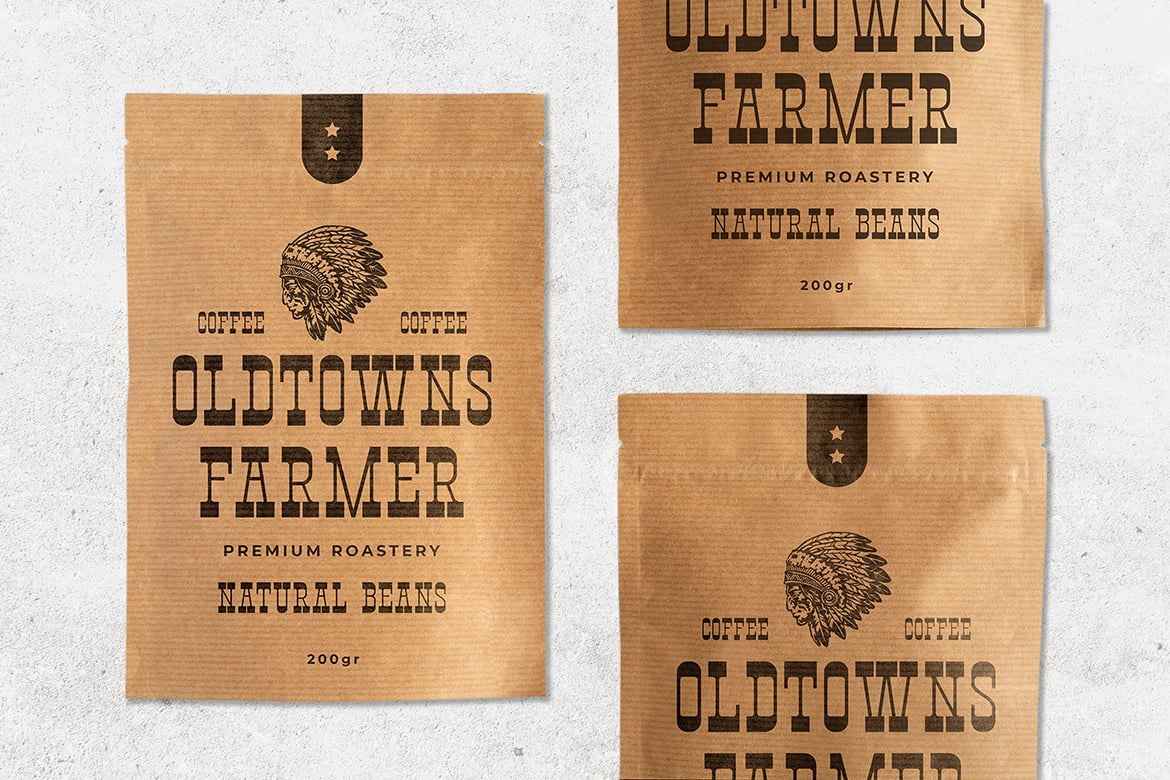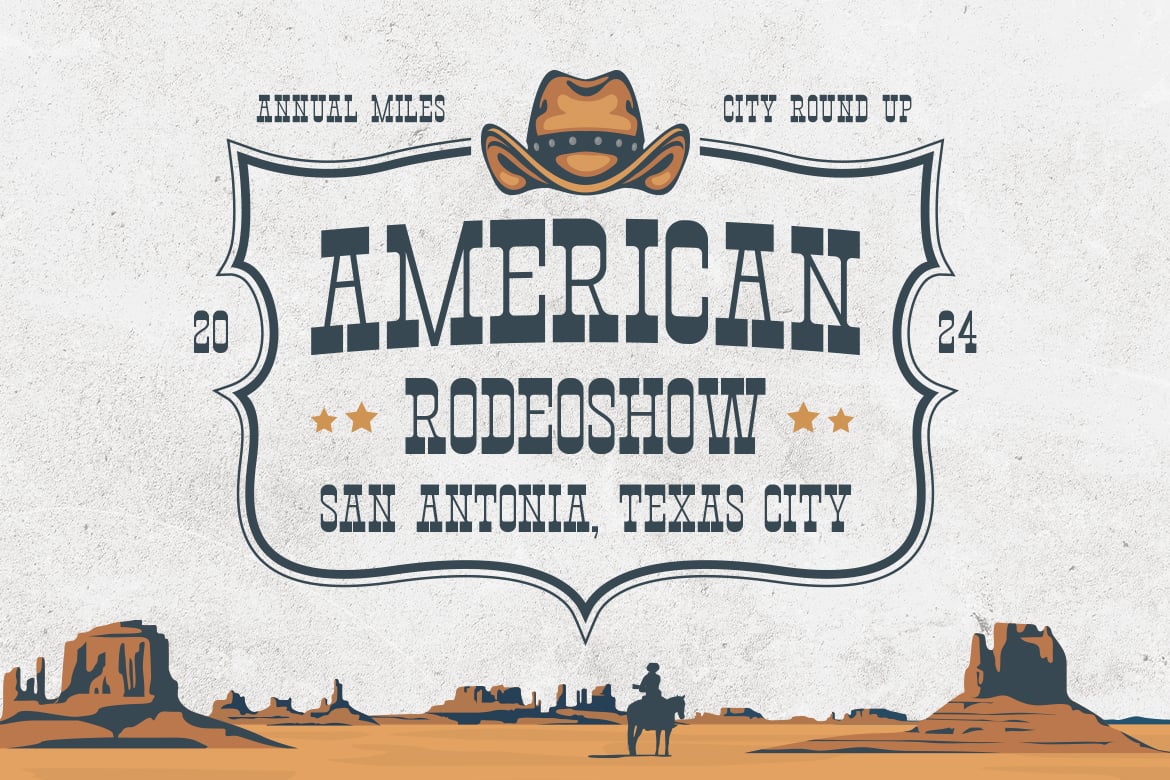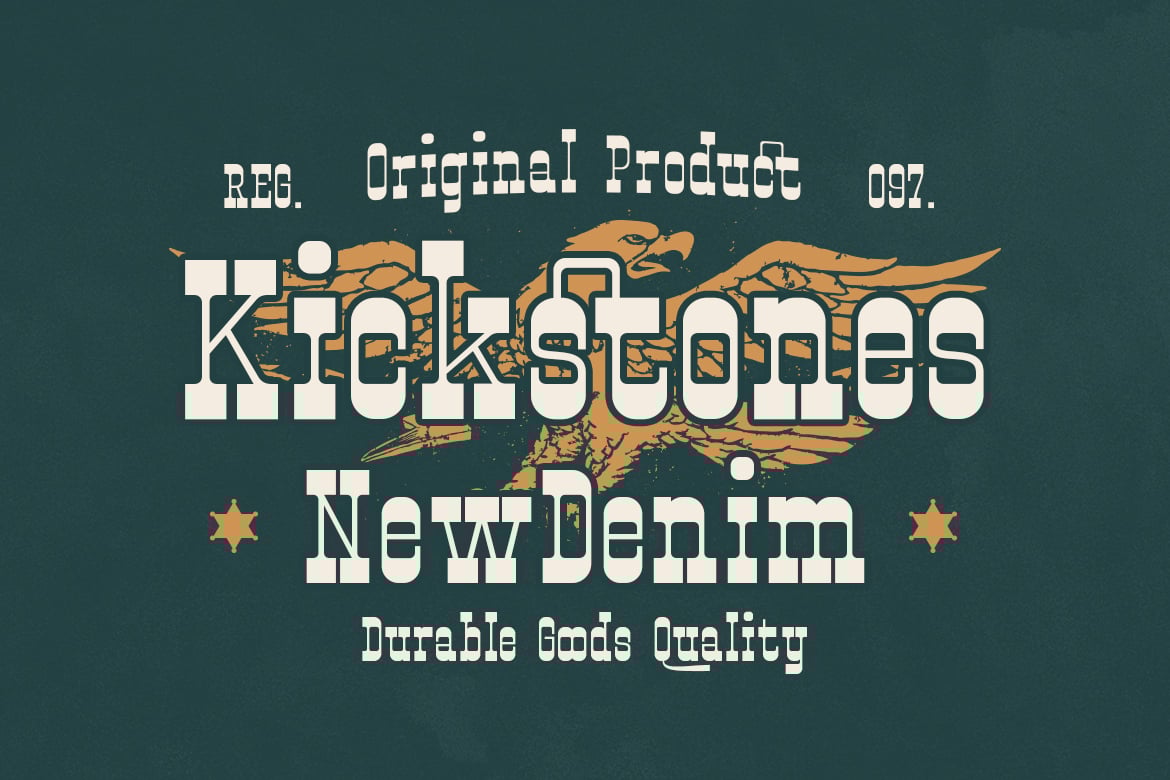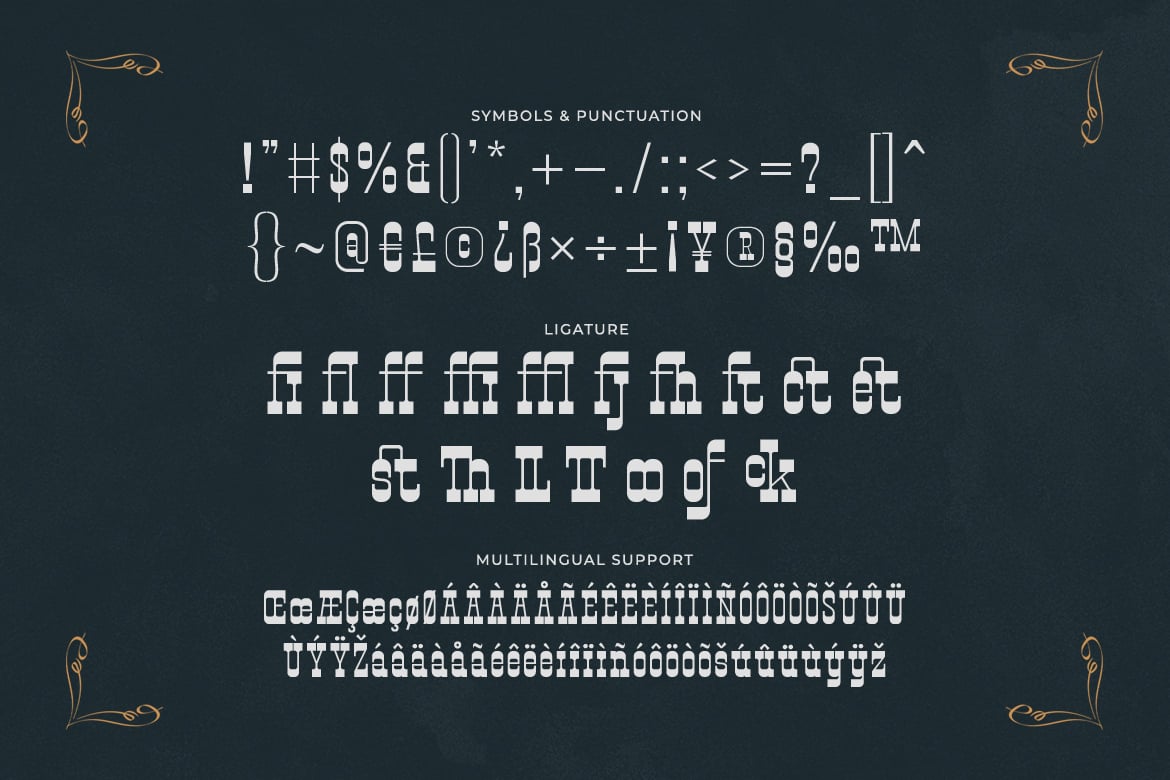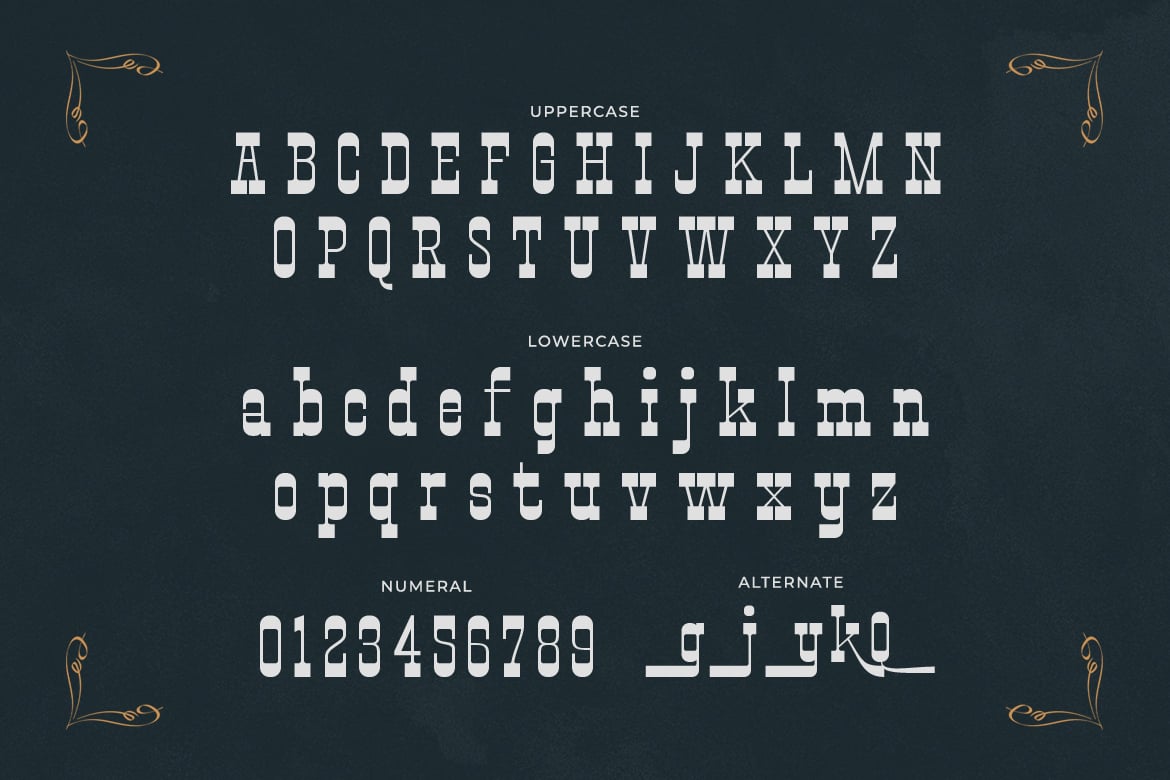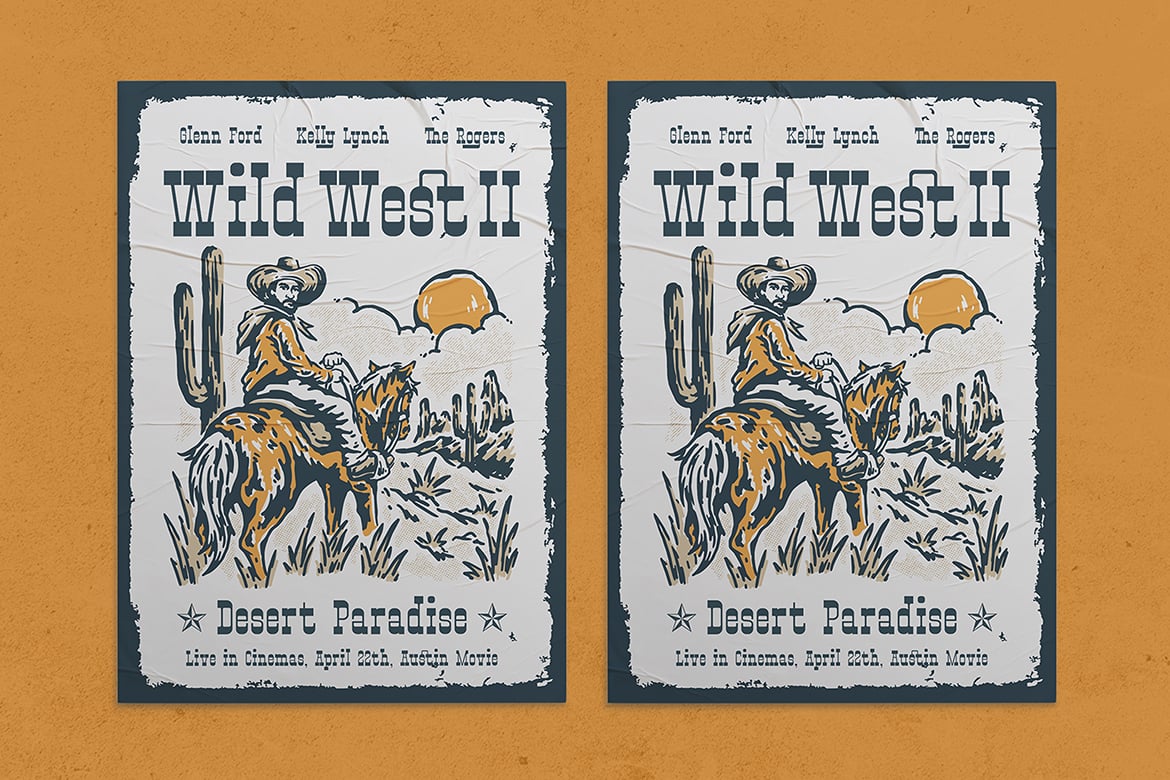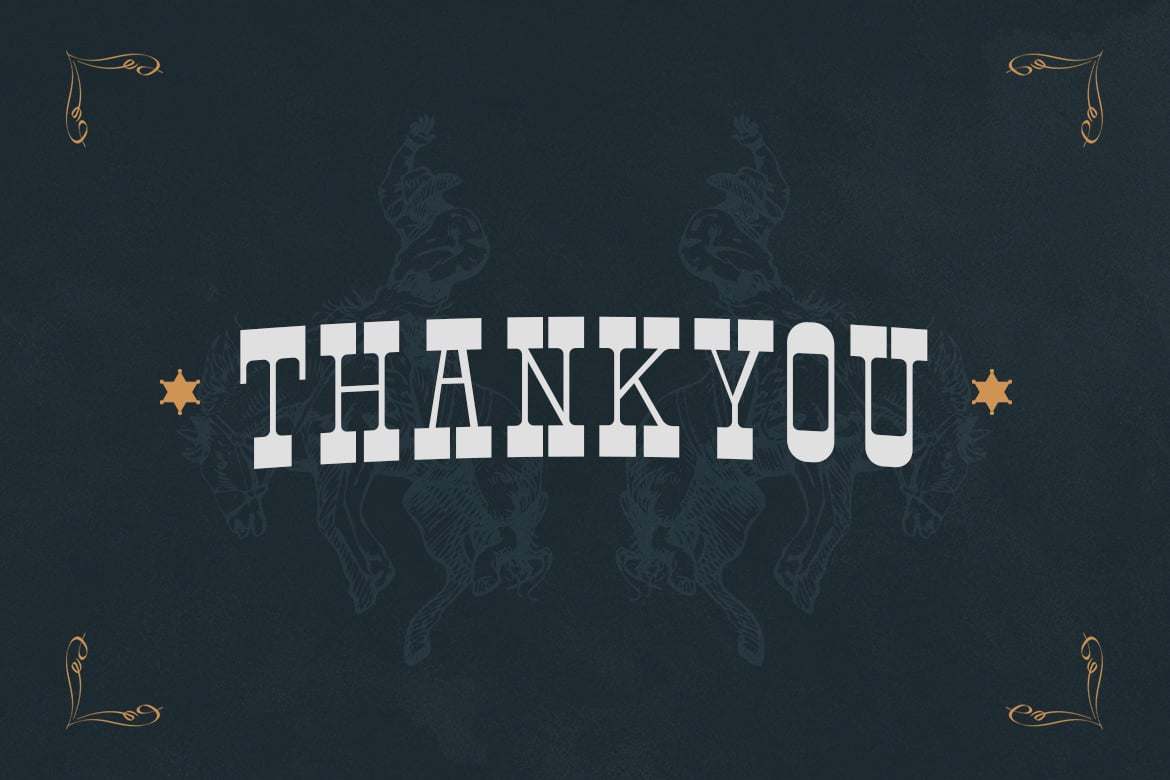
Kauwboy – A Western Display Font
Transport yourself to the wild west with “Kauwboy” – a Western display font that captures the rugged spirit of the frontier.
With its bold and intricate letterforms, “Kauwboy” is a font that evokes images of dusty saloons, cowboys, and wide-open landscapes. Each letter is designed with a vintage-inspired flair, perfect for adding a touch of authenticity to your designs.
Whether you’re creating posters for a rodeo event, designing western-themed logos, or crafting adventurous branding materials, “Kauwboy” is the perfect font for the job. It’s also ideal for use in signage, packaging, and any project that requires a hint of the Old West.